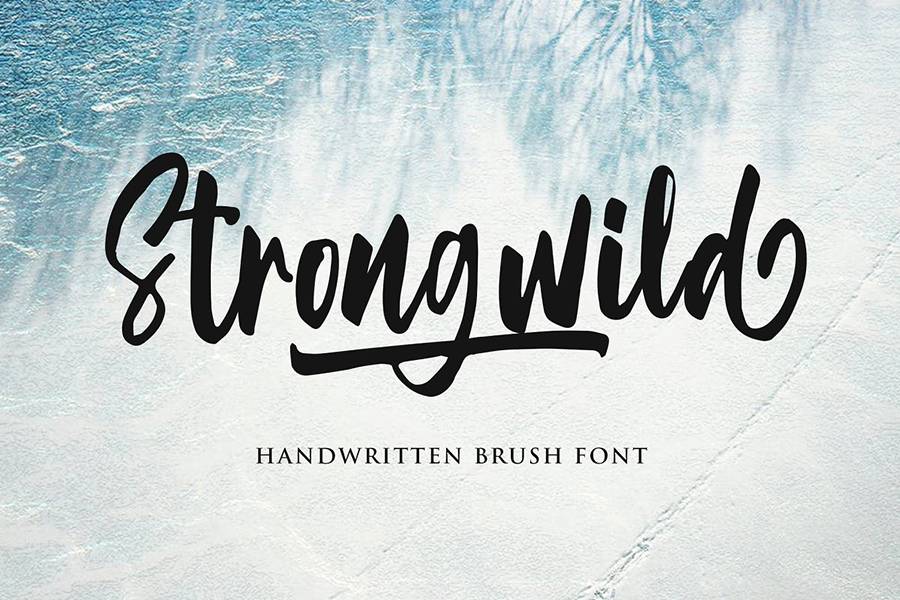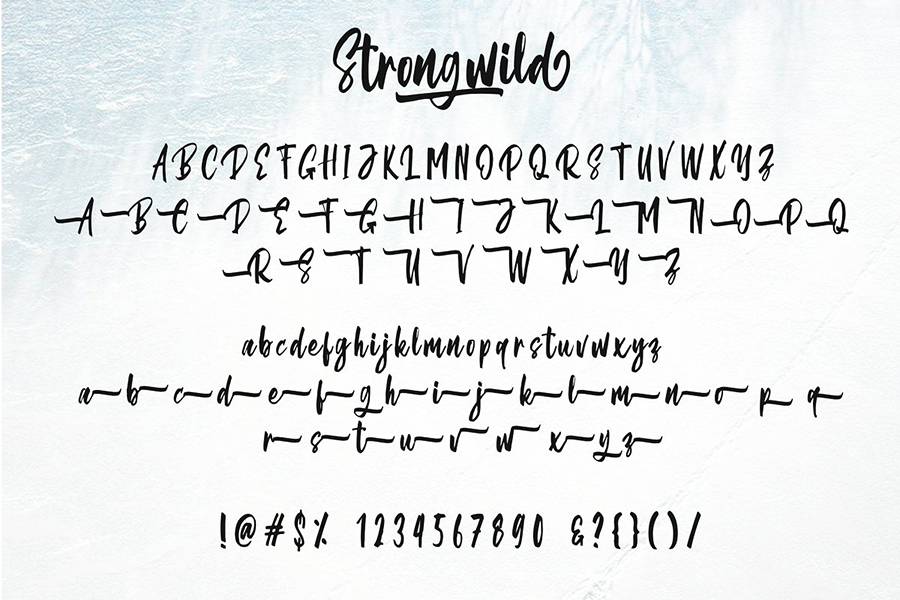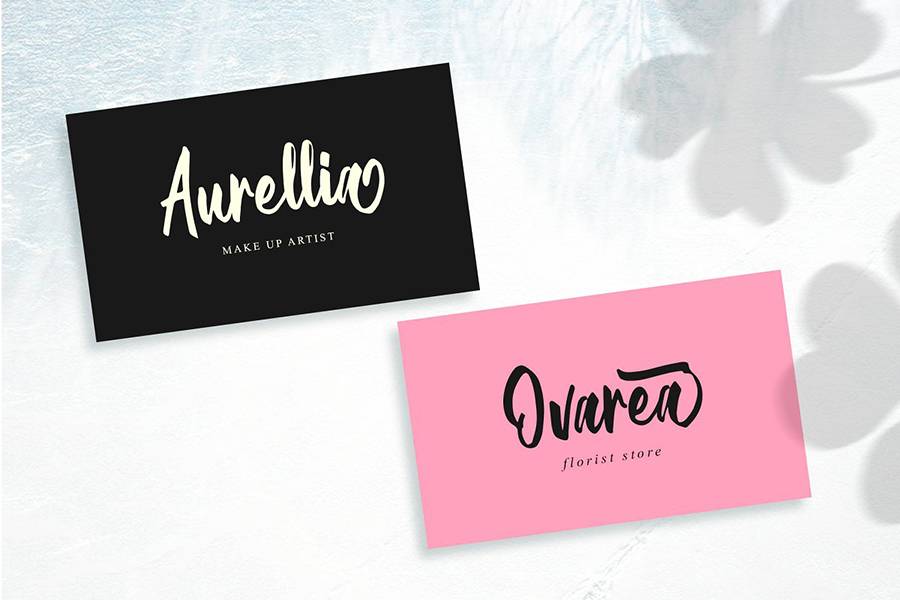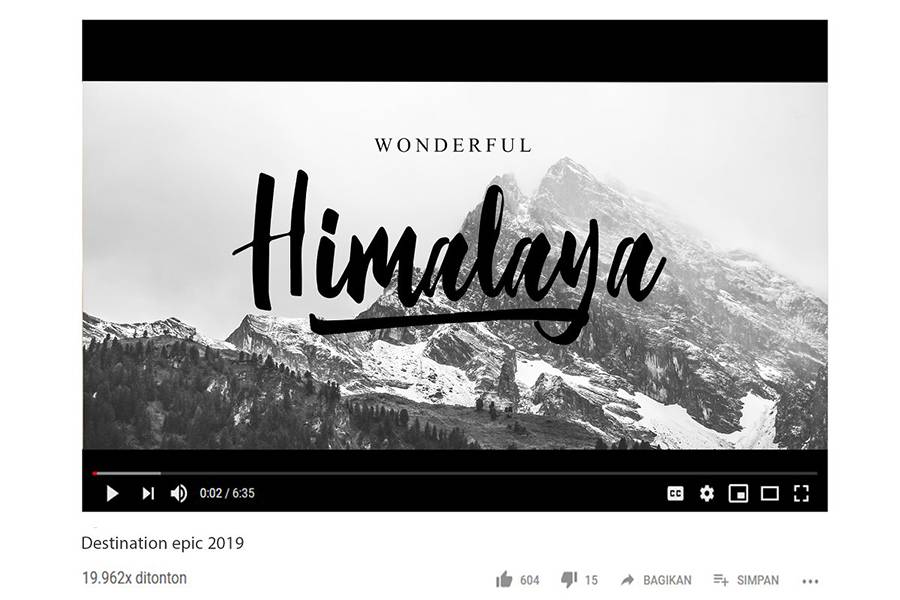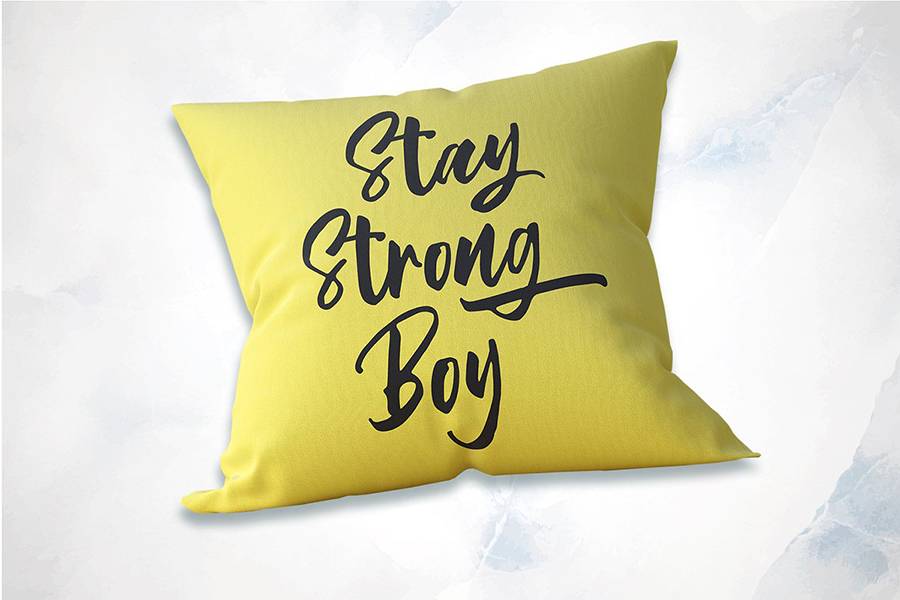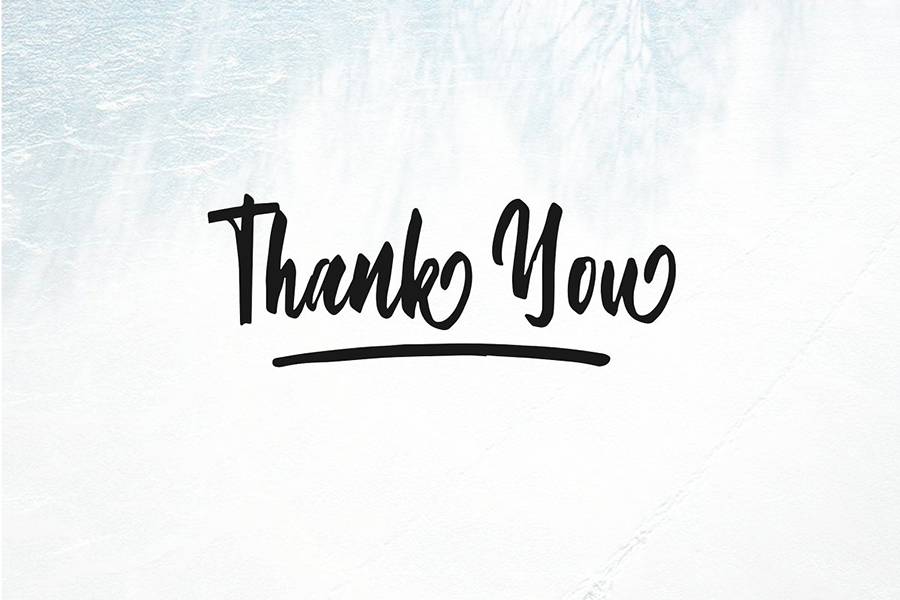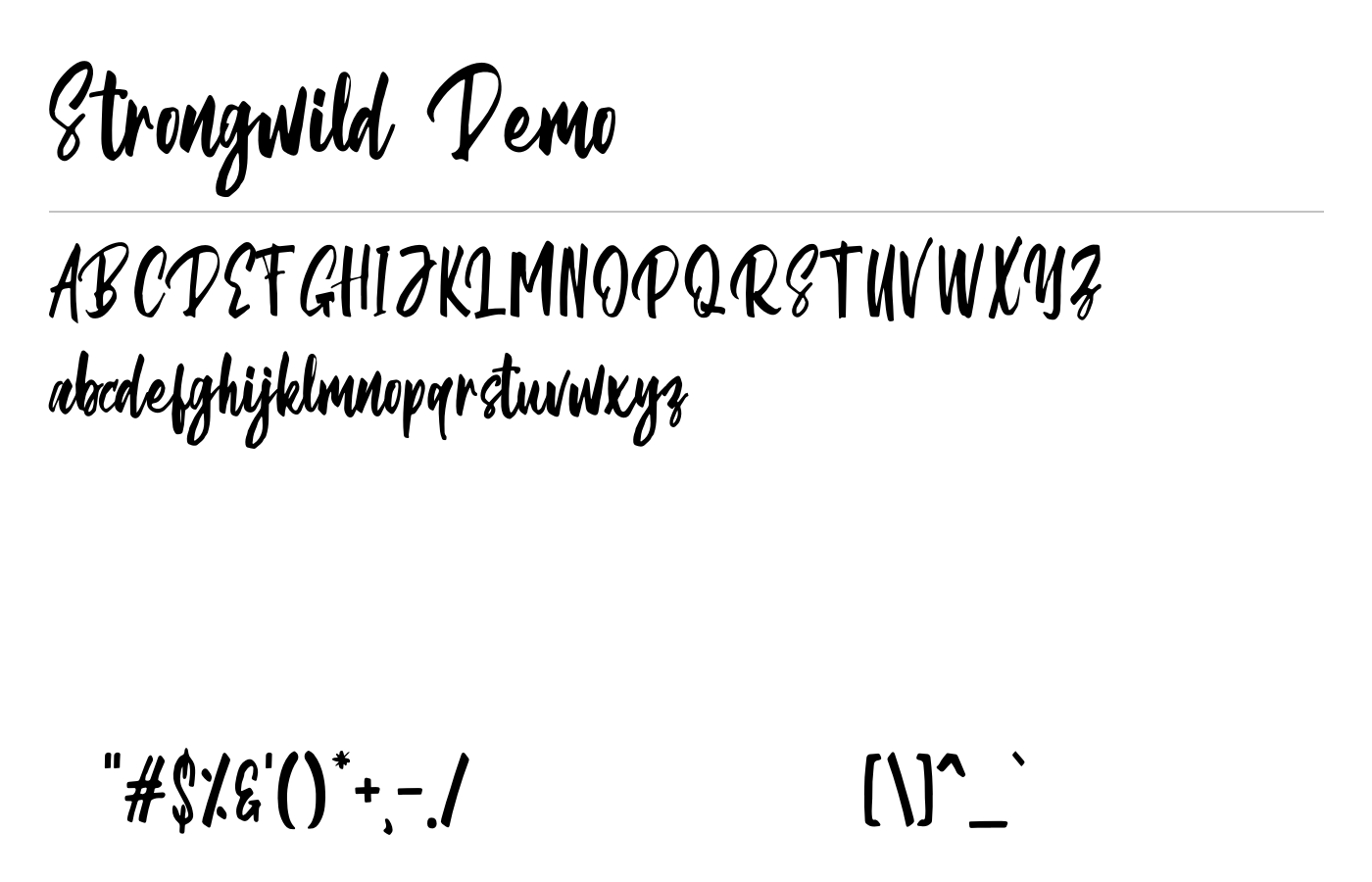
Strongwild Handwritten Brush Font
Strongwild Handwritten Brush Font is a handmade font using the brush pen! It has consistent letters with a brave brush impression on every one of its characters. This font is a perfect choice for your design such as a print, invitation, branding, t-shirt design, video thumbnail, and others.